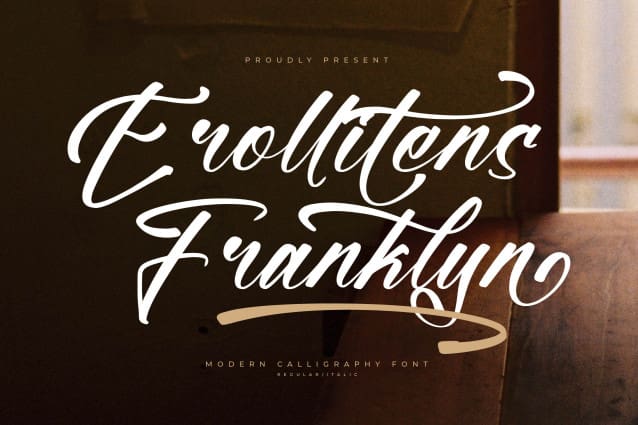
Erollitens Franklyn Font
Erollitens Franklyn Font – Modern Calligraphy Font , from Letterena, is a Luxury Script font, suitable for any projects such as: logos, branding projects, homeware designs, product packaging, mugs, quotes, posters, shopping bags, t-shirts, book covers, name card, invitation cards, greeting cards, label, photography, watermark, special events, and all your other luxury and beautiful projects that need a Luxury Script taste.